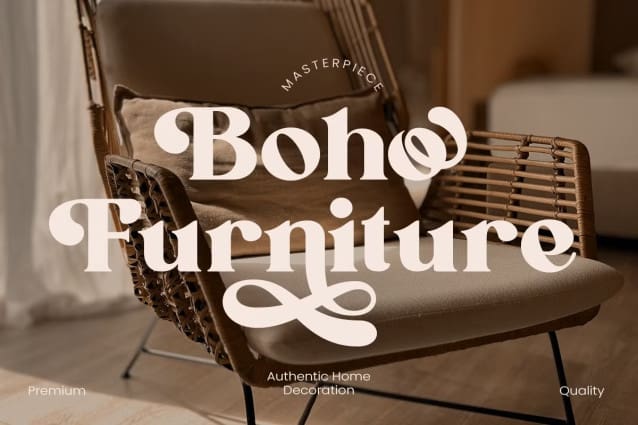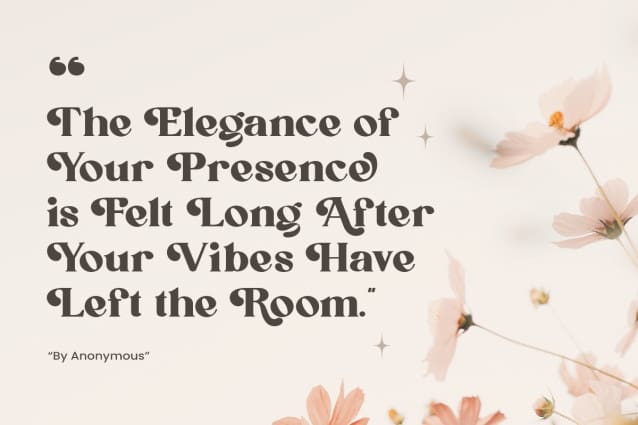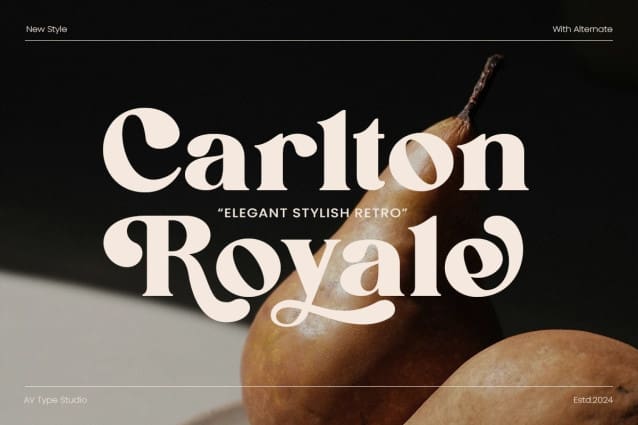
Carlton Royale Font
Carlton Royale Font, a bold and stylish serif font designed to evoke a sense of nostalgic charm while maintaining a modern flair. With its retro and classic aesthetic, it is perfect for display projects that aim to stand out and make a statement.
Featuring a range of alternatives and ligatures, this typeface provides versatility for designers looking to craft unique layouts. Whether you’re working on vintage branding, editorial designs, or eye-catching posters, Carlton Royale blends bold typography with a touch of nostalgic elegance.
Unlock the potential of Carlton Royale to create stylish, memorable, and classic designs that leave a lasting impression.